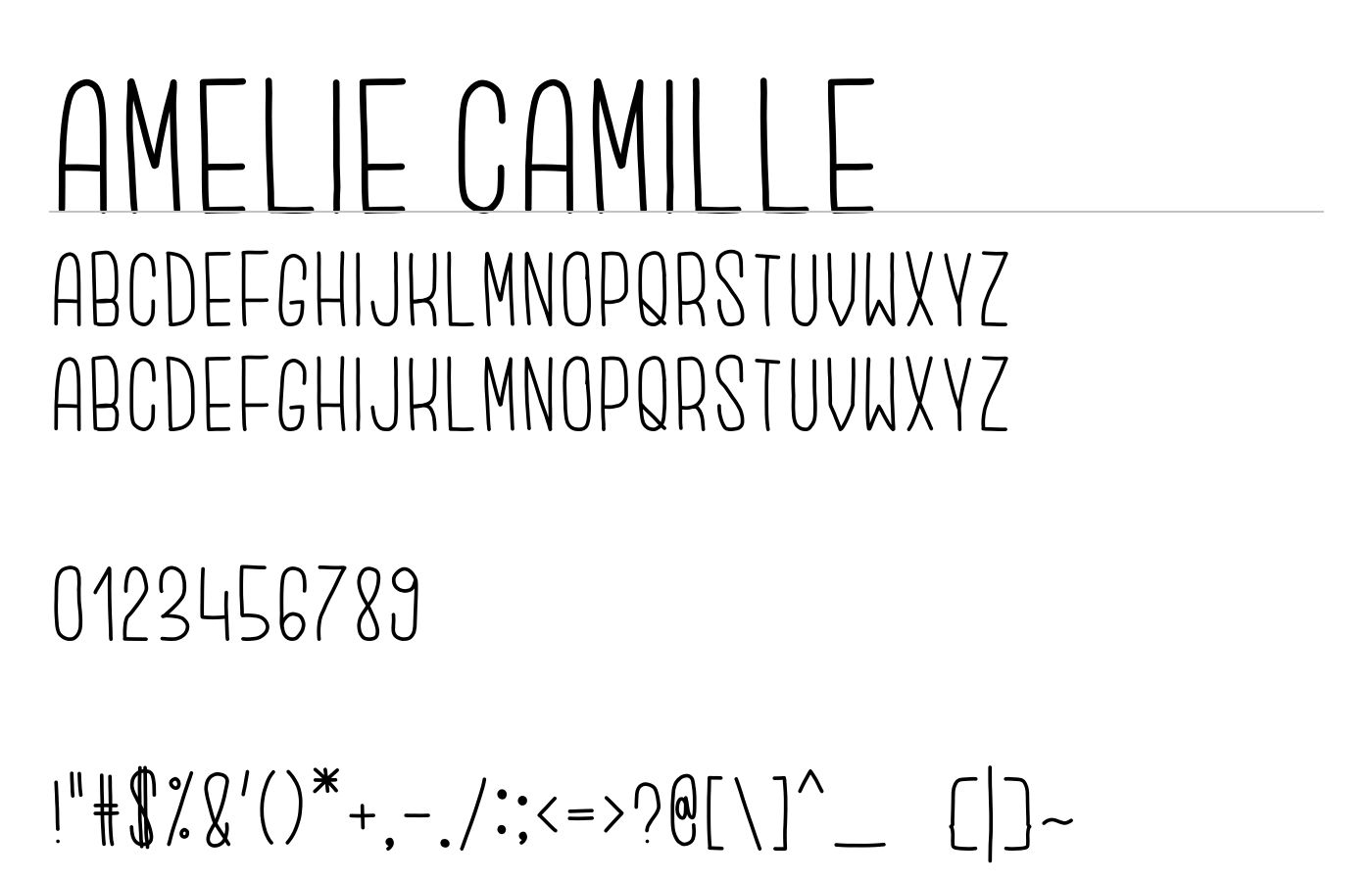
Amelie Camille is a tall, narrow sans serif font with a playful and hand-drawn feel, featuring thin, even strokes that create a light and airy appearance. Its elongated letterforms and casual style make it perfect for creative projects, invitations, and branding that seek a friendly, whimsical touch while maintaining clarity and elegance. This font works best in headlines, logos, and designs where a unique, approachable personality is desired.
Amelie Camille Font
About Amelie Camille Font